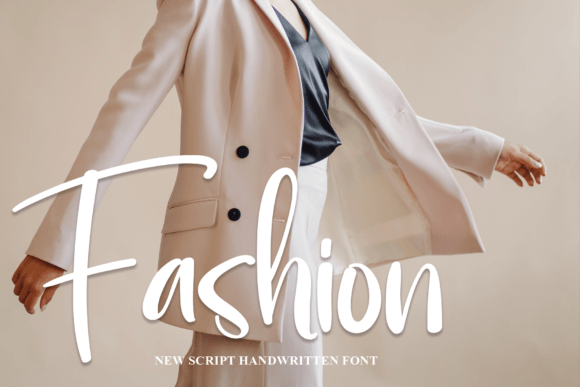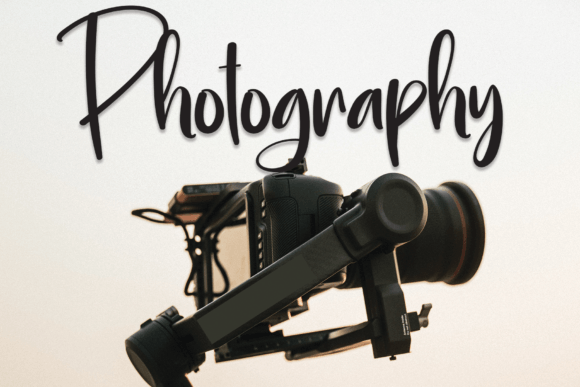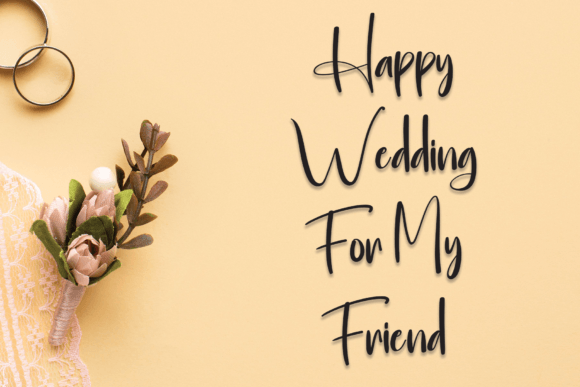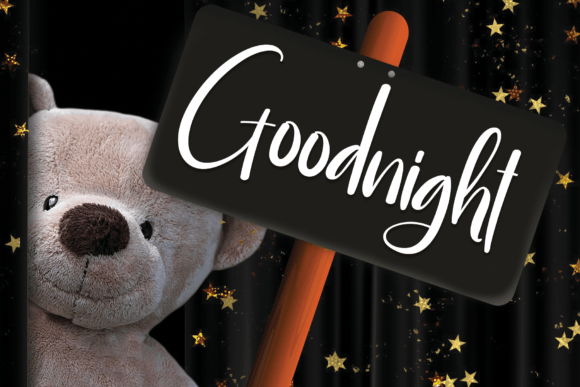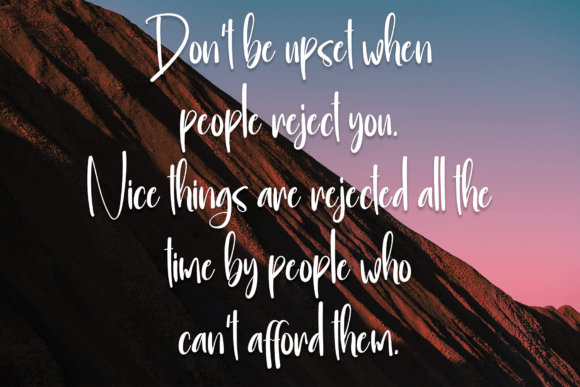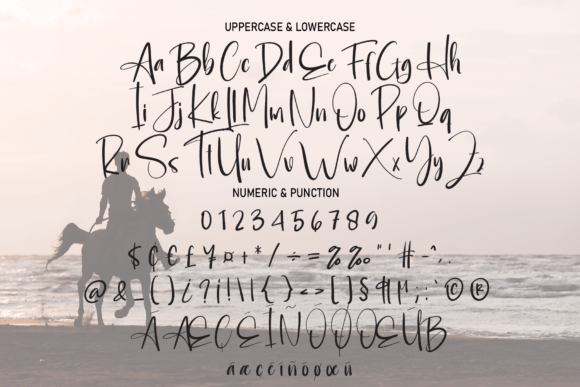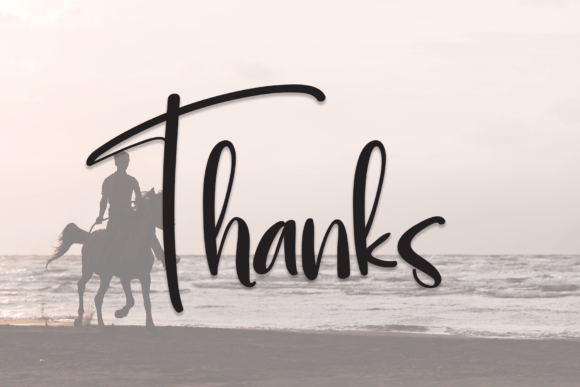
Hobbyhorse Font
About Hobbyhorse Font
Presenting Hobbyorse, a font characterized by its latest style letters, perfect for a wide array of creative projects. This font is tailored for versatility, making it an ideal choice for wall displays, wedding invitations, social media post logos, advertisements, product packaging, product designs, labels, photography, watermarks, invitations, stationery, and any project that benefits from a handwritten touch.
Hobbyorse’s latest style letters are designed to bring a contemporary and handwritten aesthetic to your designs. The font’s adaptability makes it a suitable choice for a diverse range of applications, ensuring that it adds a personalized and engaging feel to your projects.
Consider utilizing Hobbyorse to create eye-catching wall displays, adding a touch of charm to wedding invitations, or enhancing the visual appeal of your social media post logos. Its versatility extends to product packaging, labels, and stationery, where the handwritten taste of Hobbyorse can elevate the overall aesthetic.
This font is crafted to be a reliable and stylish choice, making it easy to incorporate into different design contexts. Its latest style letters contribute to a modern and fresh look, ensuring that your projects stand out with a distinctive and personalized touch.
In essence, Hobbyorse is more than just a font; it’s a creative tool that brings a handwritten taste to your projects. Let it be the go-to choice for various design applications, allowing you to infuse your work with the charm and character that Hobbyorse’s latest style letters provide.